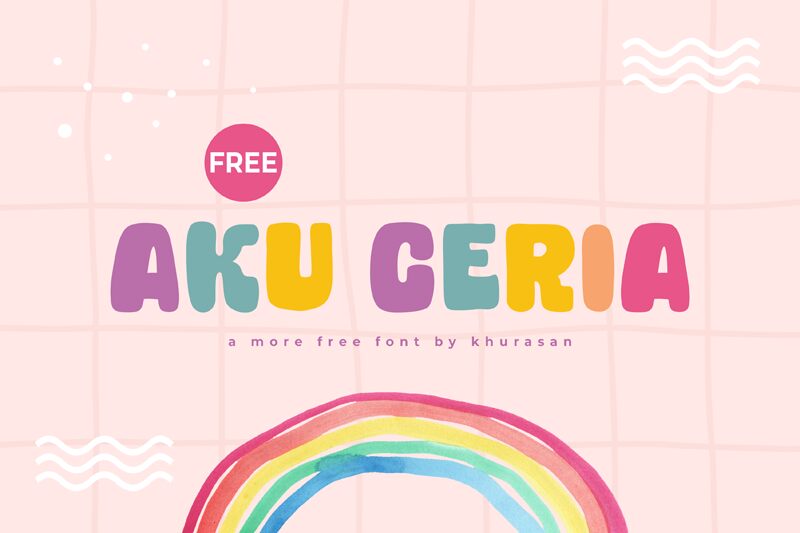
Aku Ceria
Aku Ceria font by Khurasan combines a friendly mood and casual aesthetics for an engaging display. Its rounded presence works to highlight its cartoon style that instantly creates a playful vibe. With influences from both the retro and modern typography, this bold font by the designer beautifully embraces the past and present.
Feel free to use this free display font for children’s book covers, storybooks, stationeries, or unusual brands’ identities like those of toy brands, candy shops, clothing brands for kids, or even local pizzerias! It is also wonderful for comics and strips.